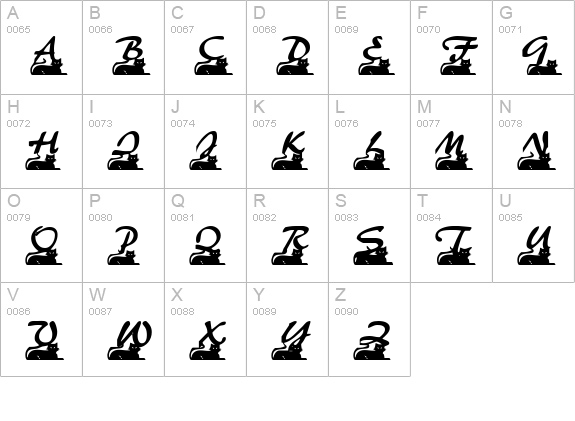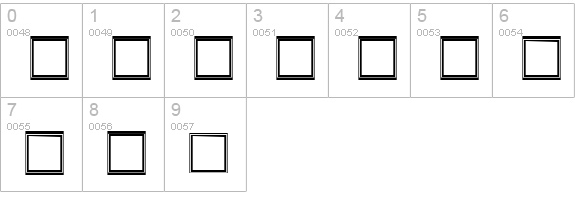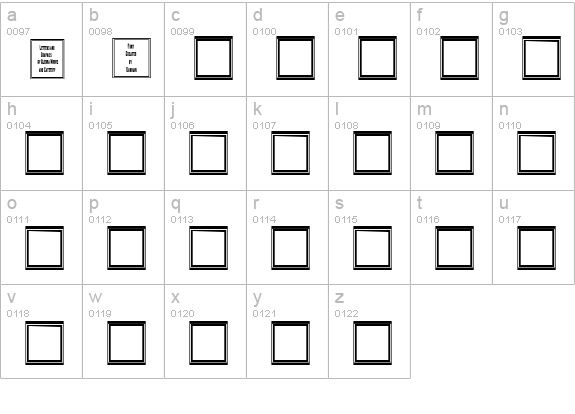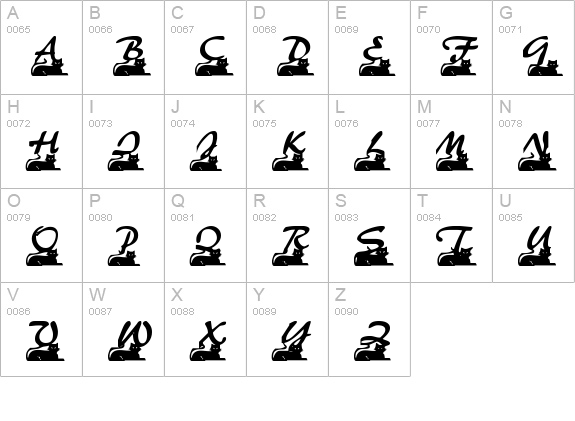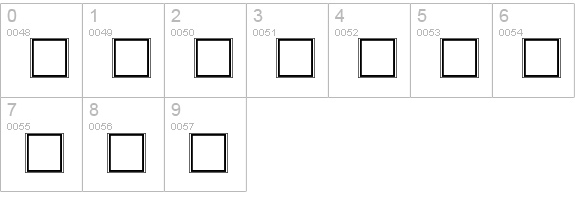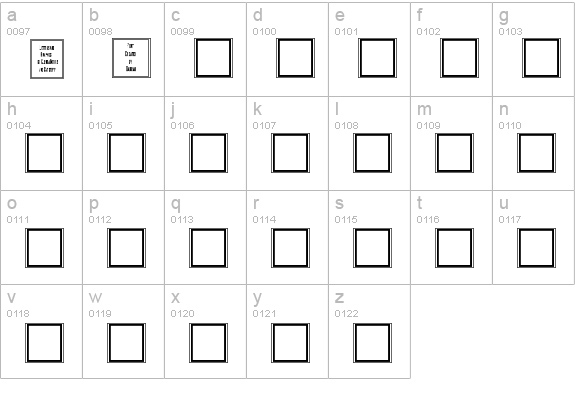
Catstuff Font Details
Catstuff font is a charming and playful typeface perfect for adding a touch of whimsy to your designs. Its rounded edges and fun characters make it a great choice for projects that need a touch of personality. Whether you're creating posters, invitations, or social media graphics, Catstuff font will bring a lighthearted and friendly vibe to your work. The best part? Catstuff font is completely free to download at FontsMarket.com! You can easily add this delightful font to your collection without any cost, making it a fantastic option for both personal and commercial projects. So go ahead and give your designs a touch of feline fun with Catstuff font today!